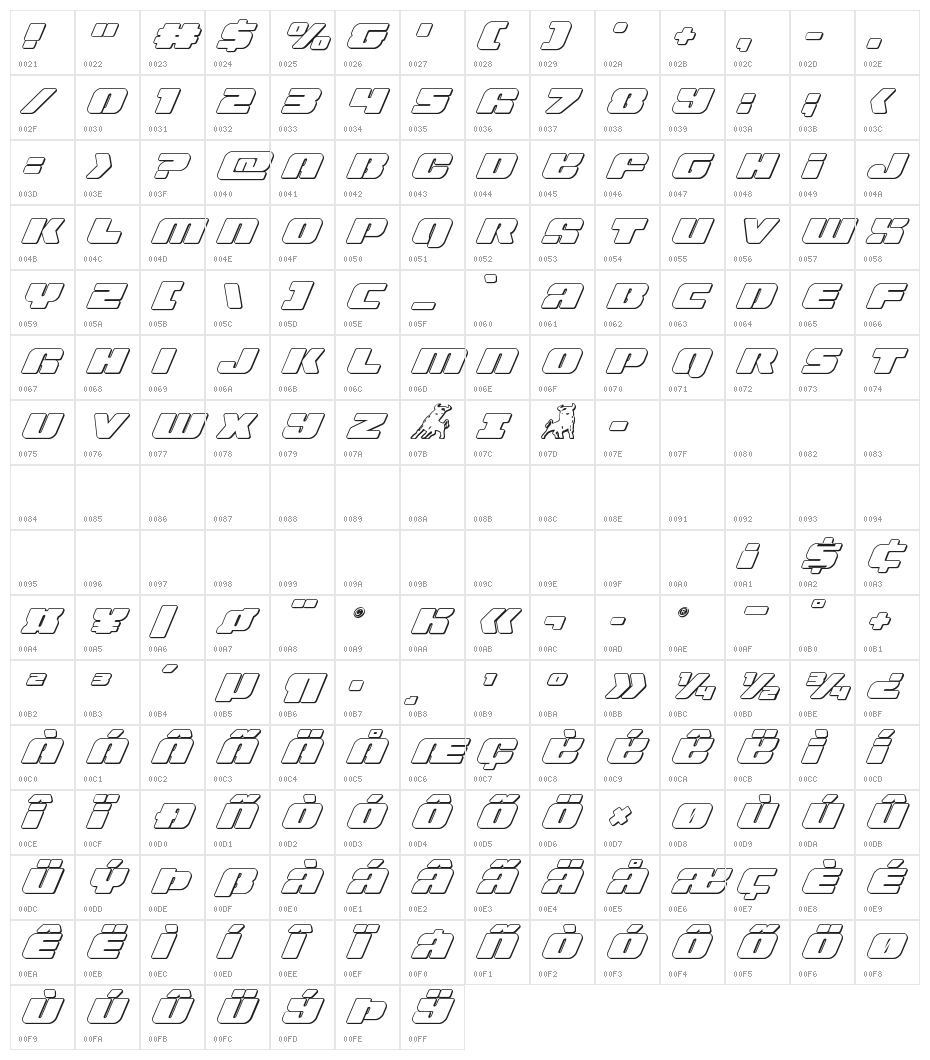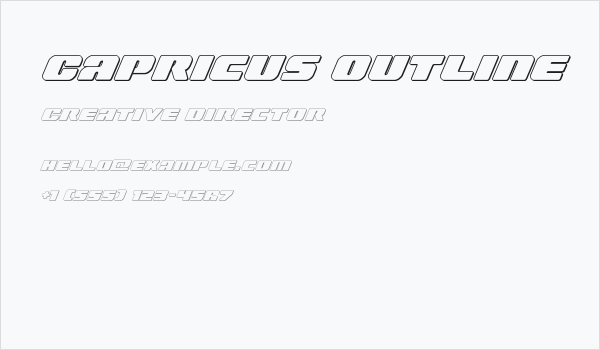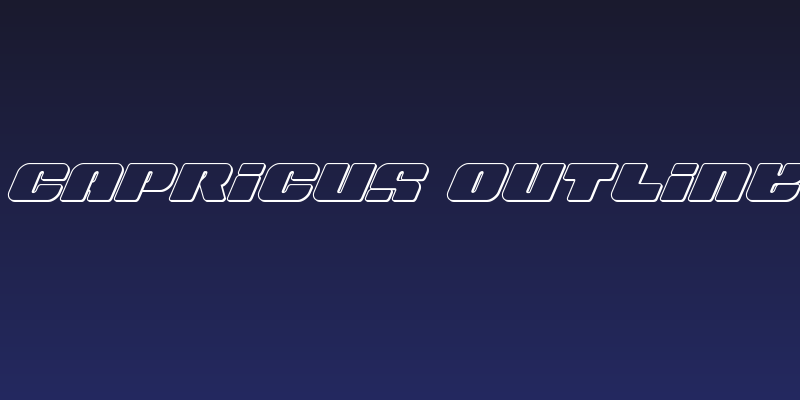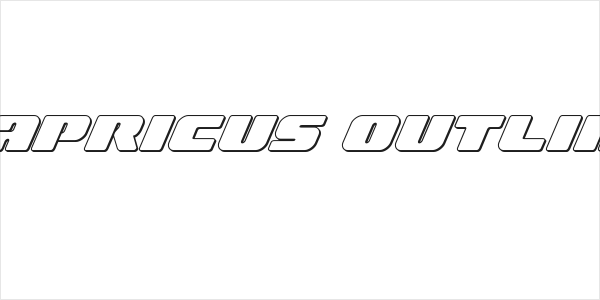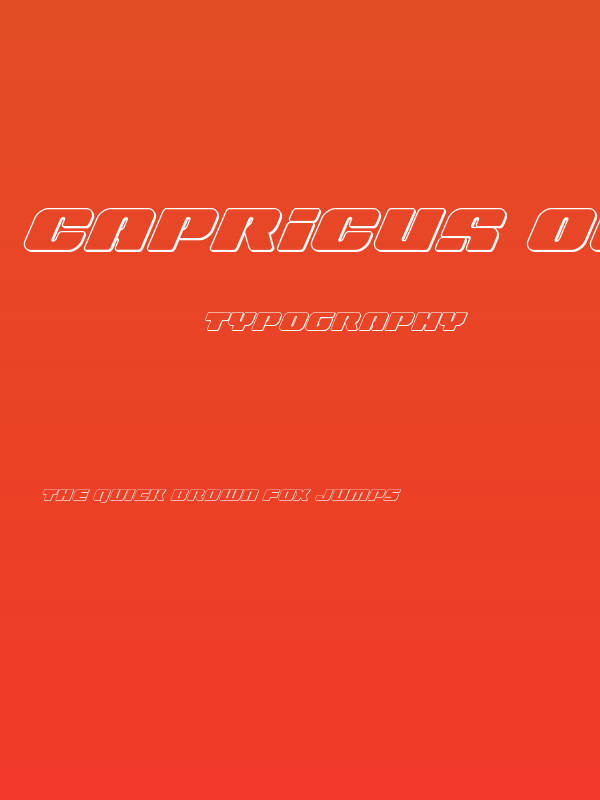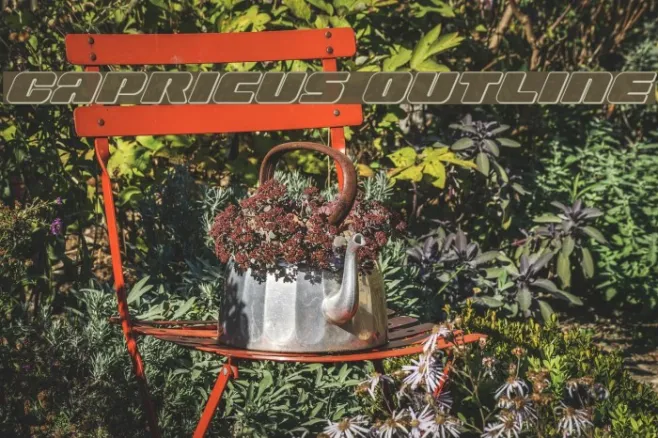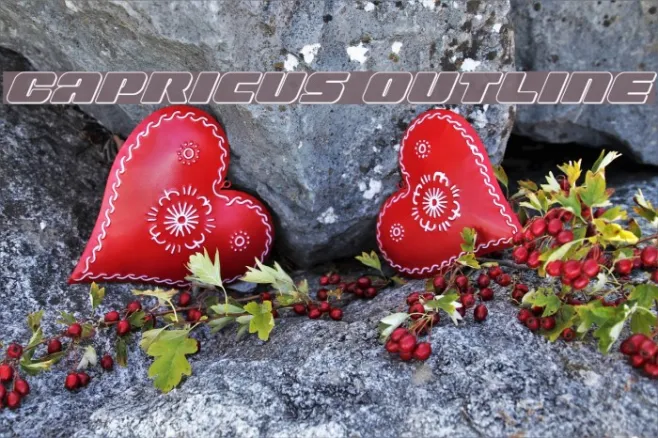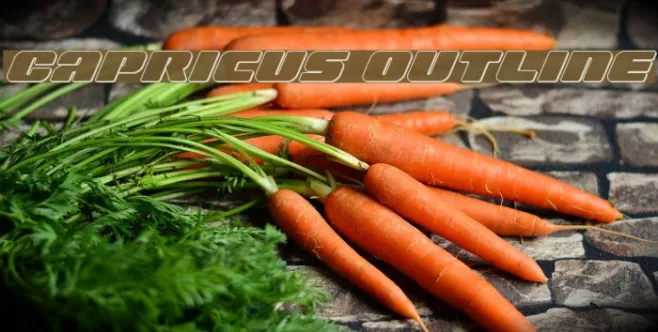
Capricus Outline Font
Capricus Outline Description
This font features a bold, futuristic design with an outline style that gives it a distinctive, modern look. The characters are wide and have a geometric structure, with sharp angles and clean lines that create a sense of movement and energy. The uppercase and lowercase letters maintain a consistent style, while the numerals and special characters are designed to complement the overall aesthetic. This font is ideal for projects that require a strong visual impact, such as branding, advertising, and digital media.
| Proposed Projects | Ideal for branding, advertising, digital media, and any project needing a modern, impactful look. |